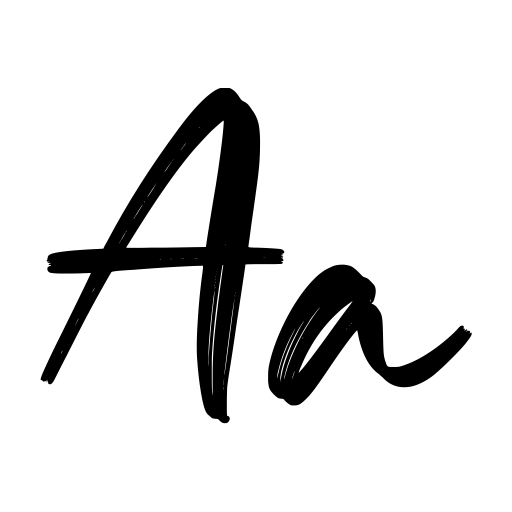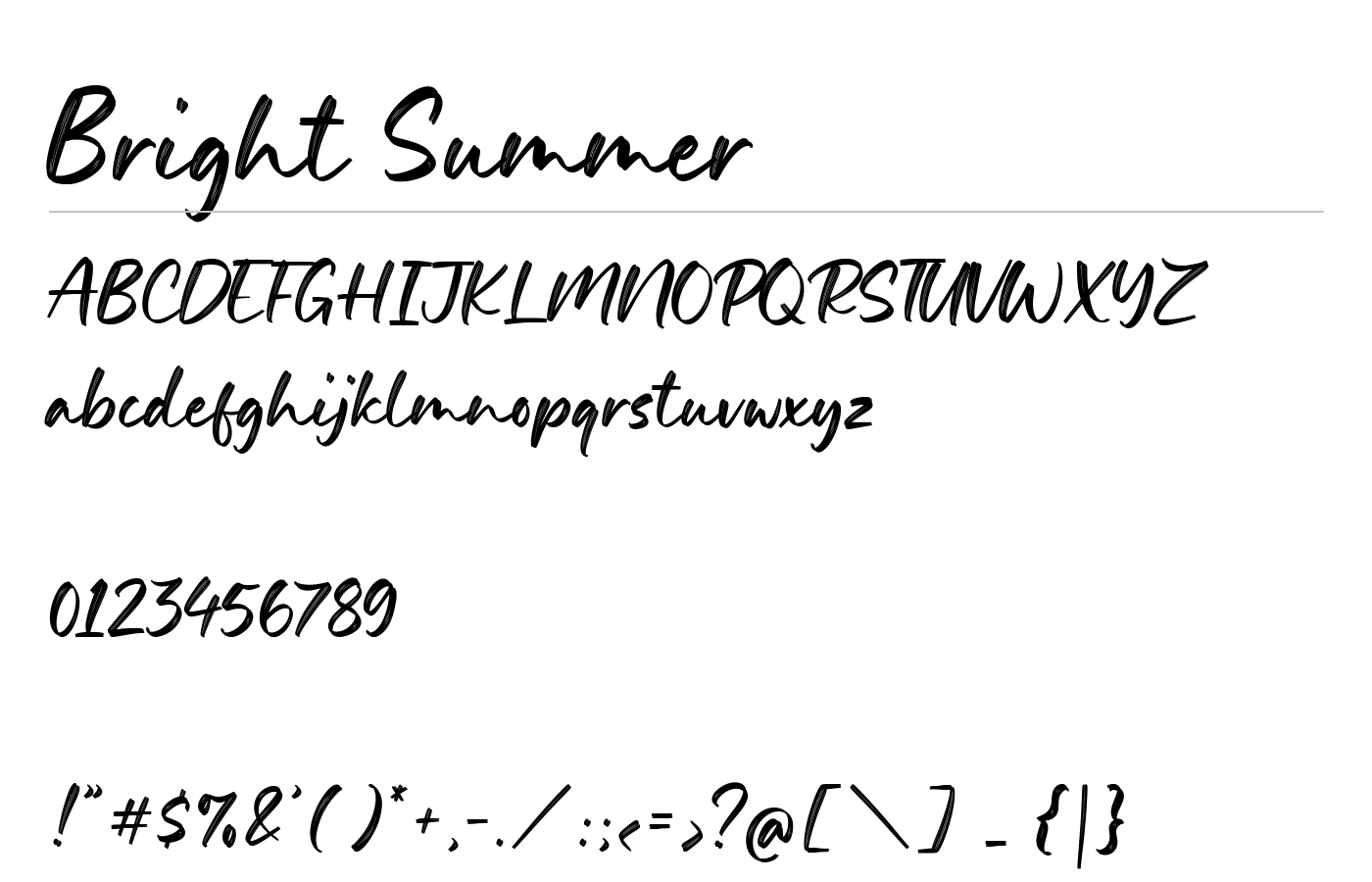
Bright Summer is a casual, handwritten script font with a lively and personal touch. Its brush-like strokes offer a warm, friendly feel with medium weight and a slightly condensed style, making it perfect for creative, informal branding, invitations, and social media. This font’s playful yet legible design works well in projects that want to convey approachability and a lighthearted, summer-inspired mood.
Bright Summer Font
About Bright Summer Font
| Font family | Bright Summer Font |